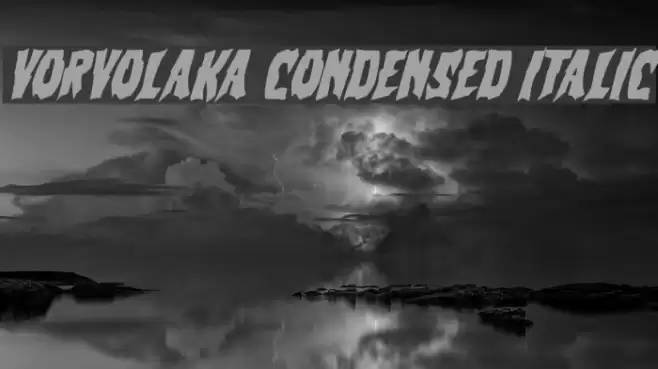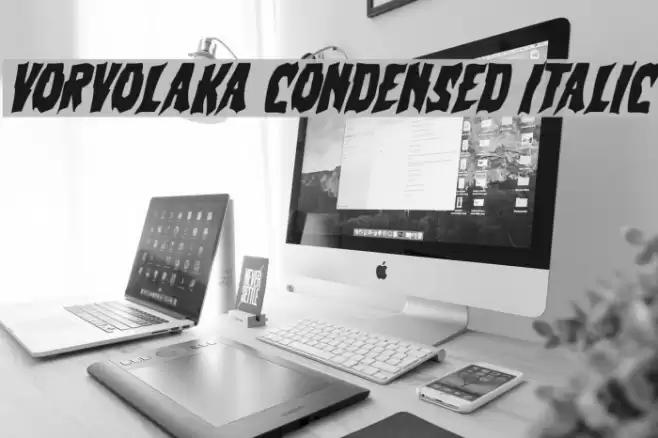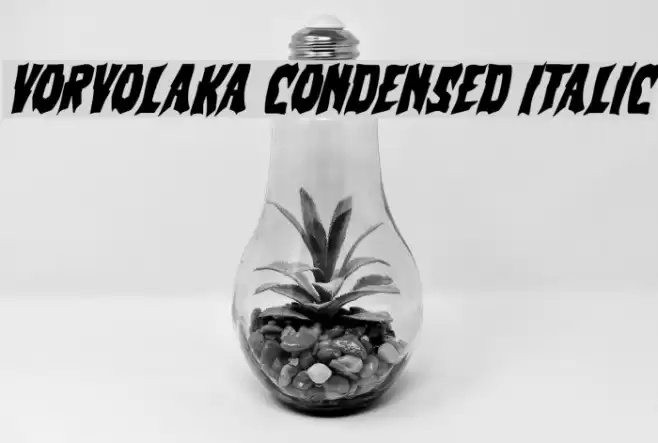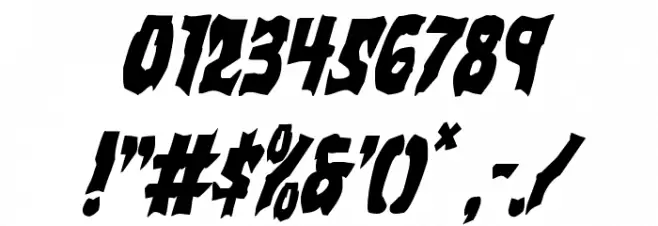
Vorvolaka Condensed Italic Font
Vorvolaka Condensed Italic Description
This font features a bold, dynamic style with sharp, angular edges and a condensed form. The italic slant adds a sense of motion and energy, making it stand out with its aggressive and edgy appearance. The uppercase and lowercase letters maintain a consistent style, with exaggerated serifs and a slightly distorted form that gives it a unique, rebellious character. The numbers and special characters follow the same design principles, ensuring a cohesive look across all glyphs. This font is ideal for projects that require a strong visual impact and a modern, unconventional aesthetic.
A bold, condensed, and italic font with sharp, angular edges and a dynamic style from Uncategorized fonts.
- Proposed Projects: Ideal for music album covers, movie posters, video game titles, and branding for edgy or alternative products.
- Overall Style: Modern, Edgy